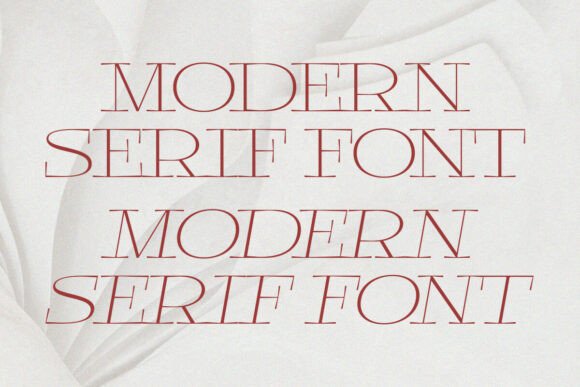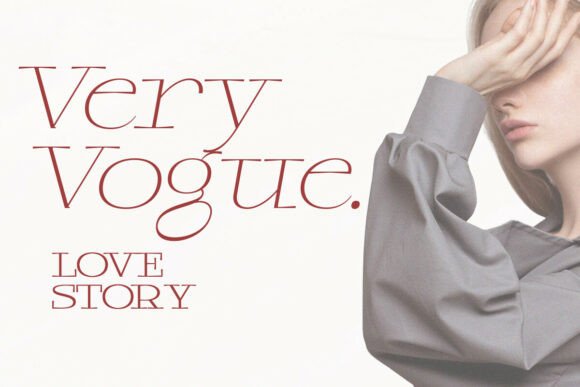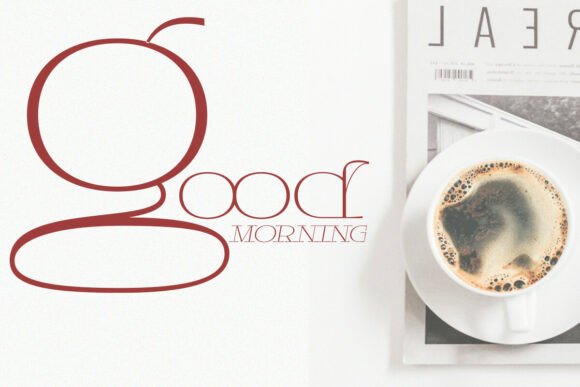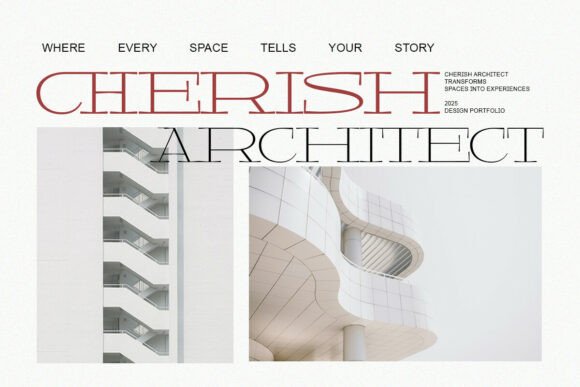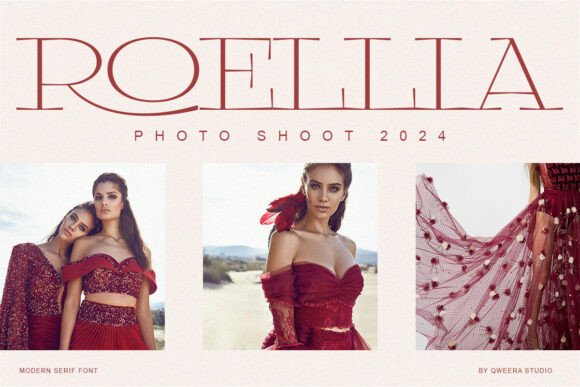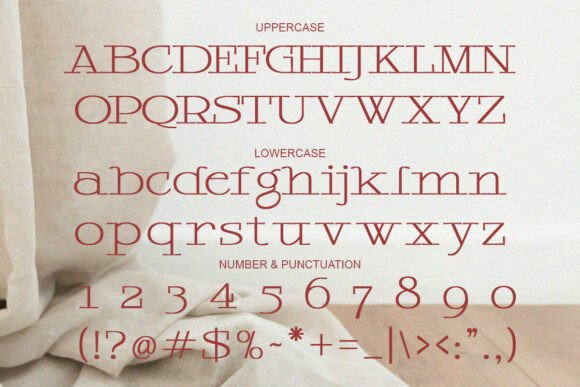
Introduction to Rodeo Crown Font
You’re in the midst of a creative project, pouring your heart and soul into the perfect design. The words, the images, the colors – everything needs to come together in harmony. And then, it hits you – the typography. The right font can elevate your entire concept, giving it a touch of sophistication and elegance. That’s where the Rodeo Crown Font comes in, a refined high-contrast serif font designed to bring a clean luxury aesthetic to your typography.
This versatile font is a game-changer for designers seeking understated refinement in luxury branding and stylish editorial concepts. With its ultra-thin strokes, tall proportions, and sharp terminals, the Rodeo Crown Font is perfect for creating high-quality designs that exude premium finesse and contemporary appeal.
Key Features of Rodeo Crown Font
- Unique Western-inspired design perfect for creative projects like country-themed posters, invitations, and more.
Honest Review: Rodeo Crown Font
Here are some things that work well with the Rodeo Crown Font: ✨ It’s highly customizable, allowing you to adjust the font size, style, and color to fit your project’s needs. ✨ The font is also high-quality and looks great on both desktop and mobile devices. ✨ It’s a great addition to any design project, and it’s easy to see why it’s a popular choice among designers.
Overall, I’d say the Rodeo Crown Font is a solid addition to any designer’s toolkit. While it may have some limitations, it’s a high-quality font that’s easy to use and customize. If you’re looking for a free design resource to add some flair to your next creative project, I’d definitely recommend giving it a try.
Tips for Getting the Most Out of Rodeo Crown Font
To get the most out of the Rodeo Crown Font, use it on a transparent background to create a creative project. You can also use it in combination with other design resources, such as graphics and images, to add depth and interest to your design.
The Rodeo Crown Font is suitable for various design projects, including posters, flyers, business cards, and social media graphics. It is also great for creating a high-quality logo or branding materials.